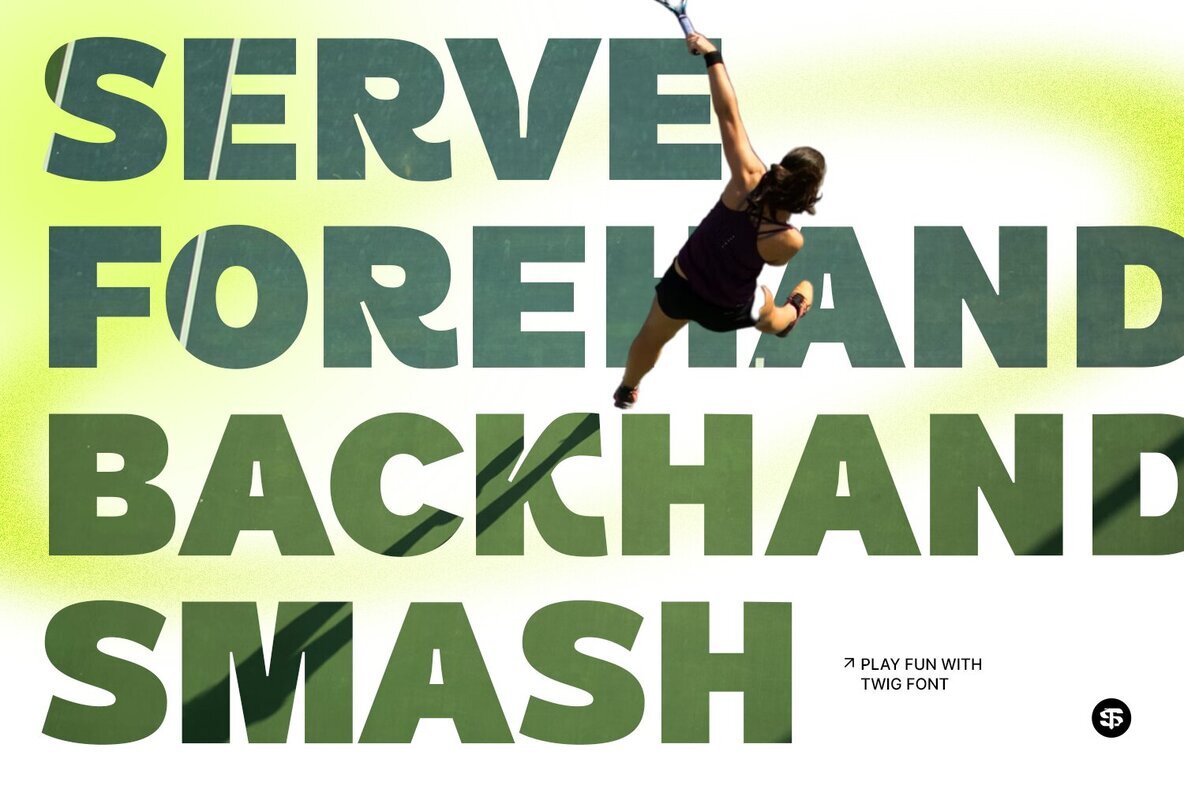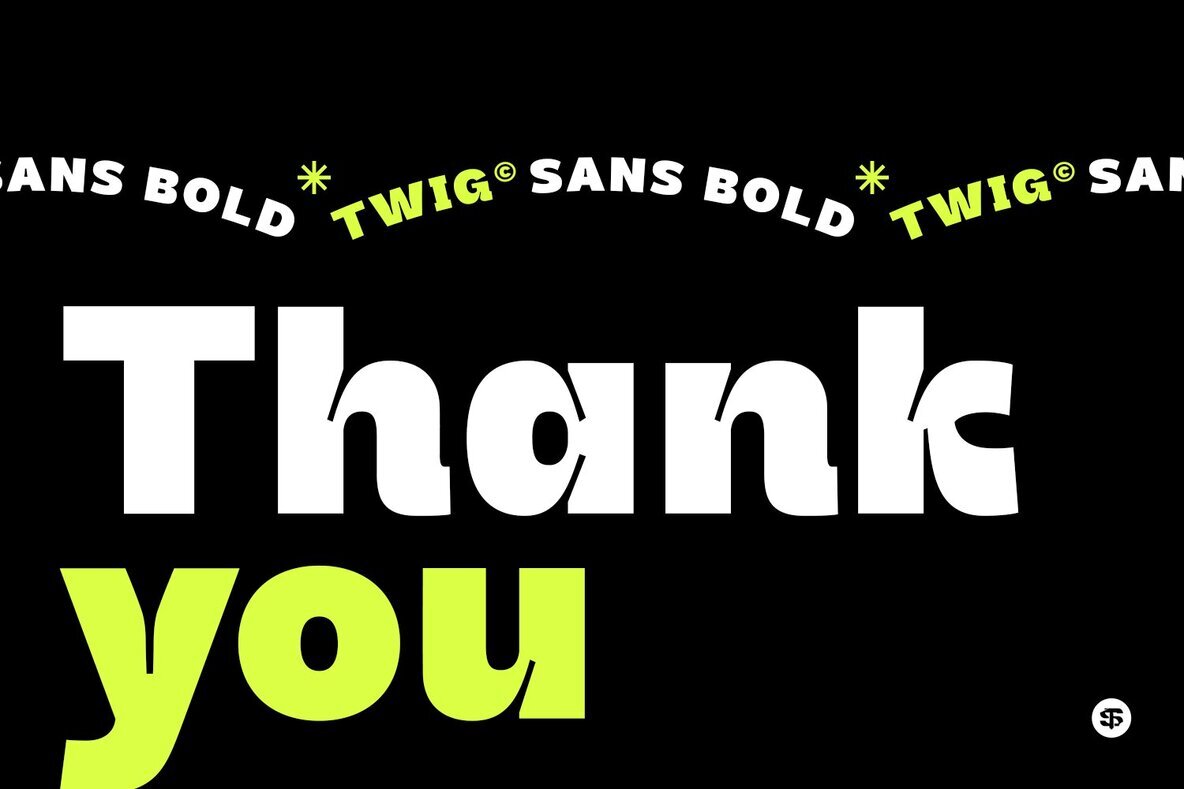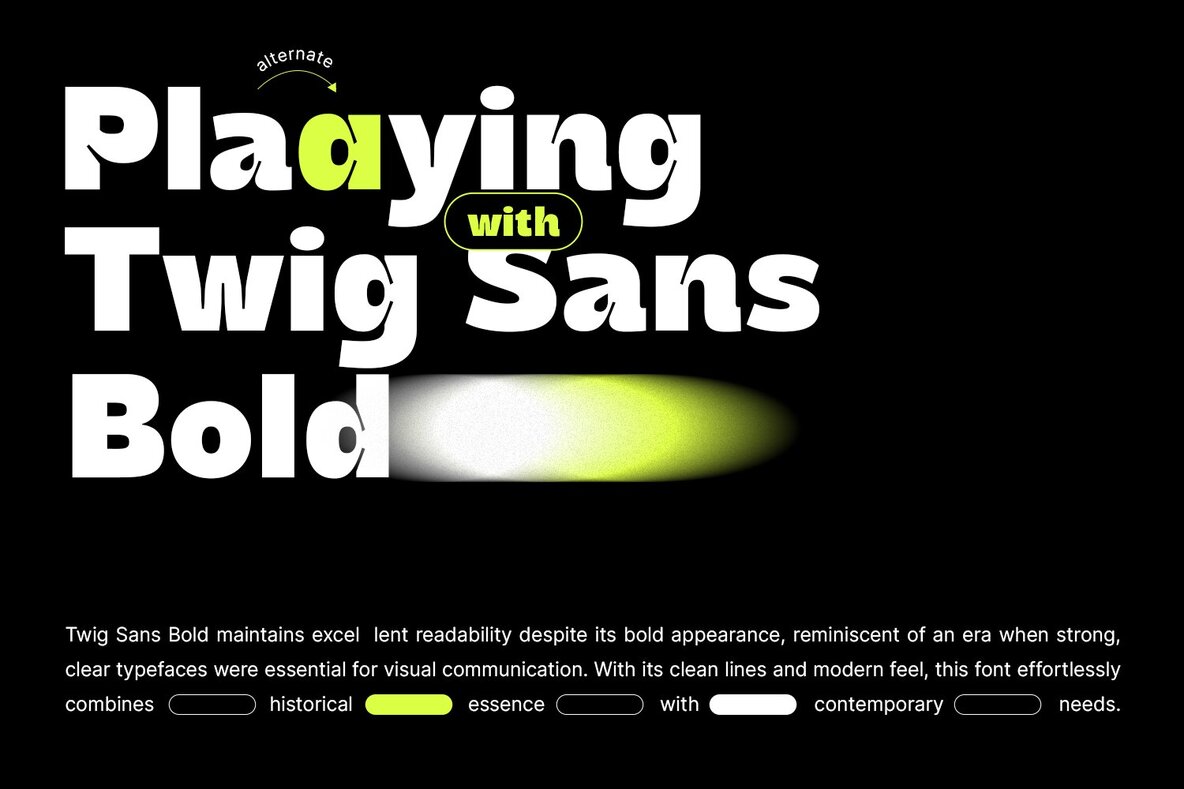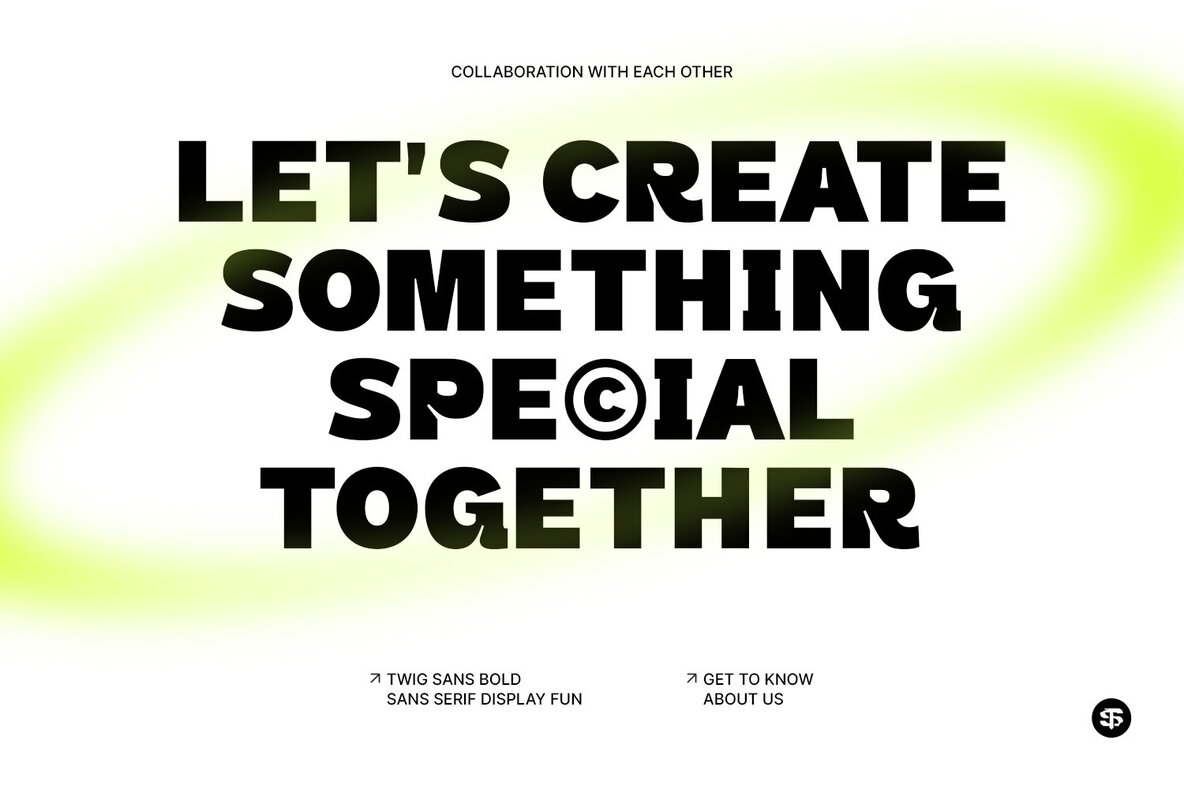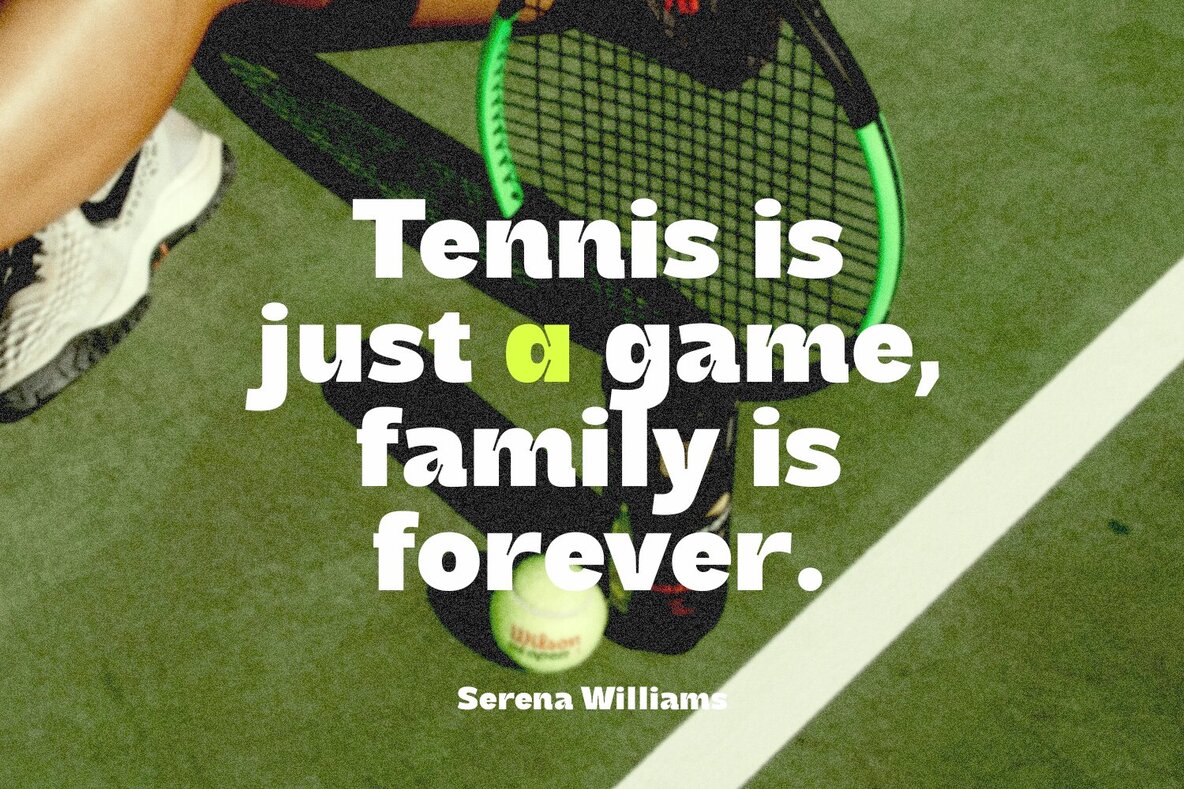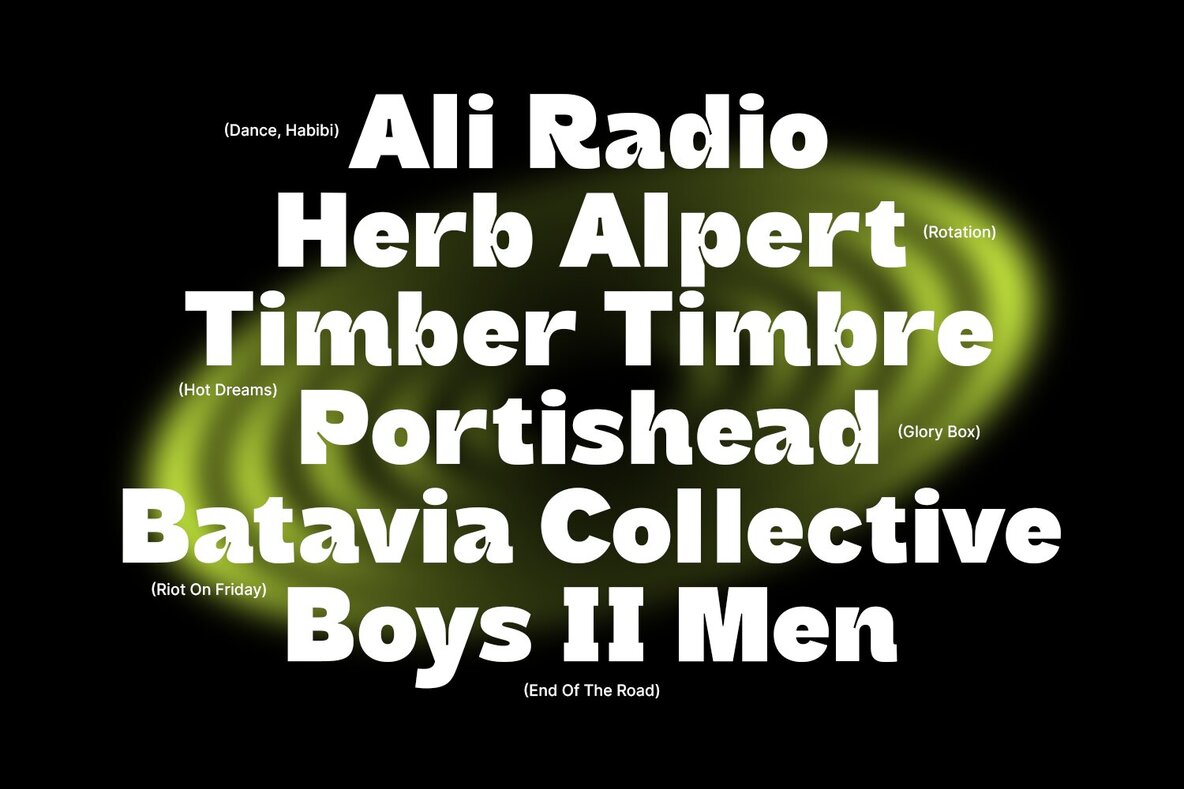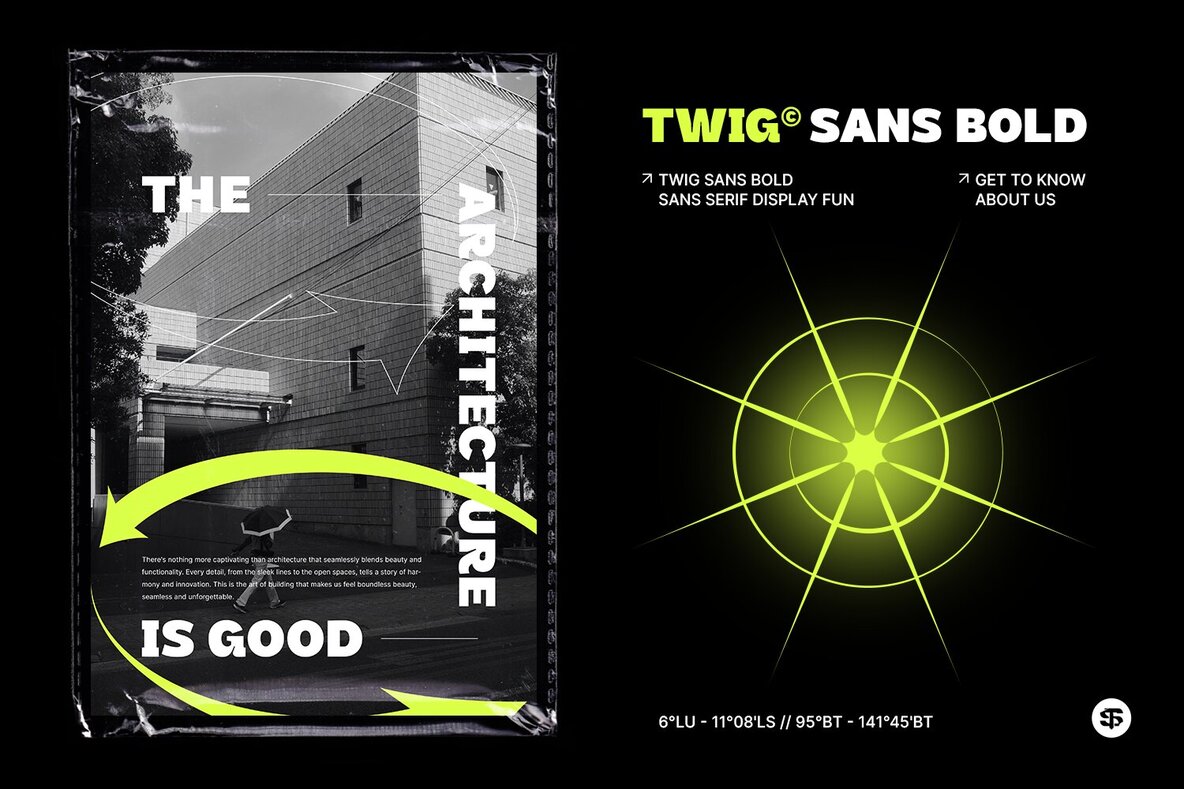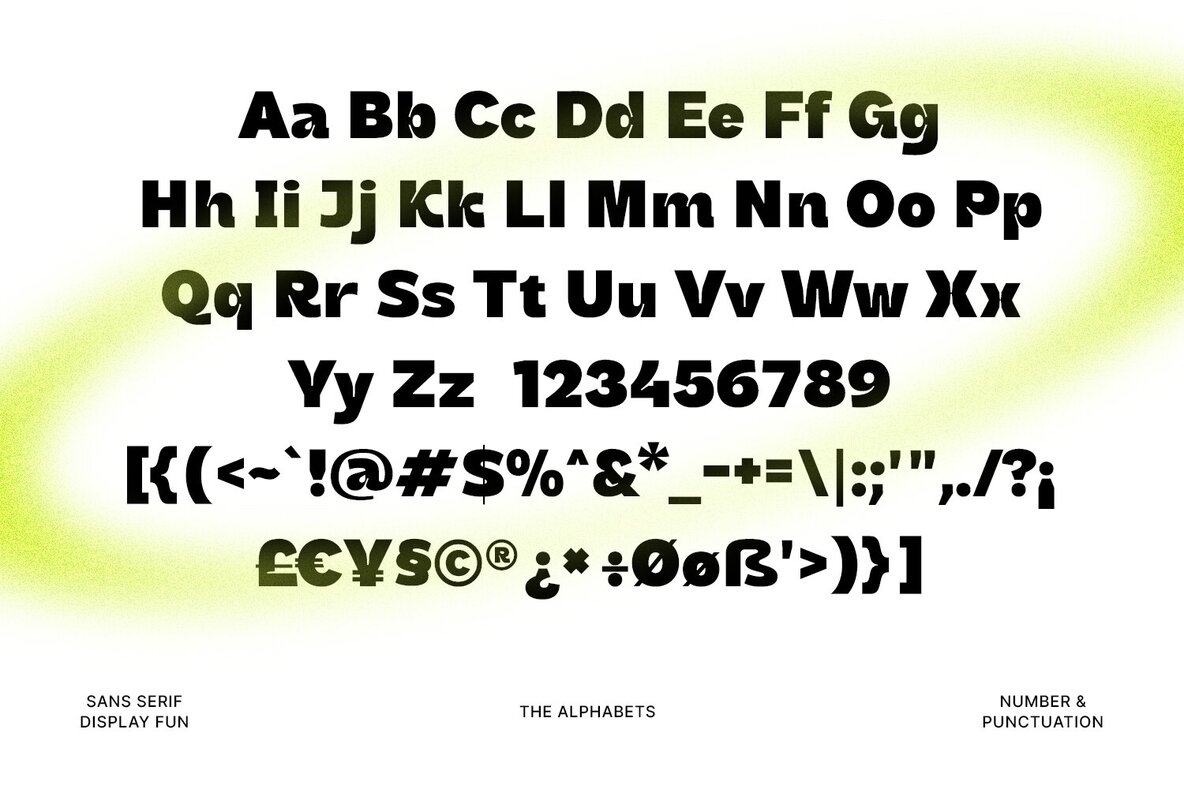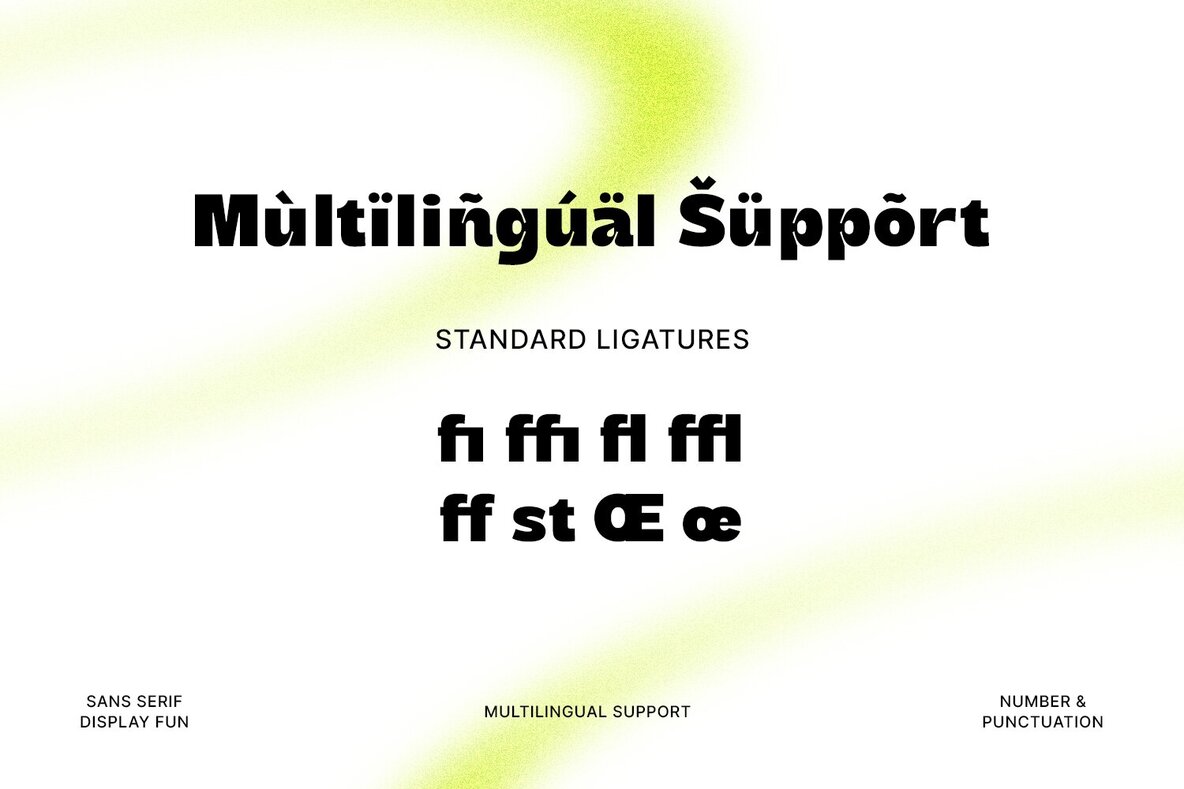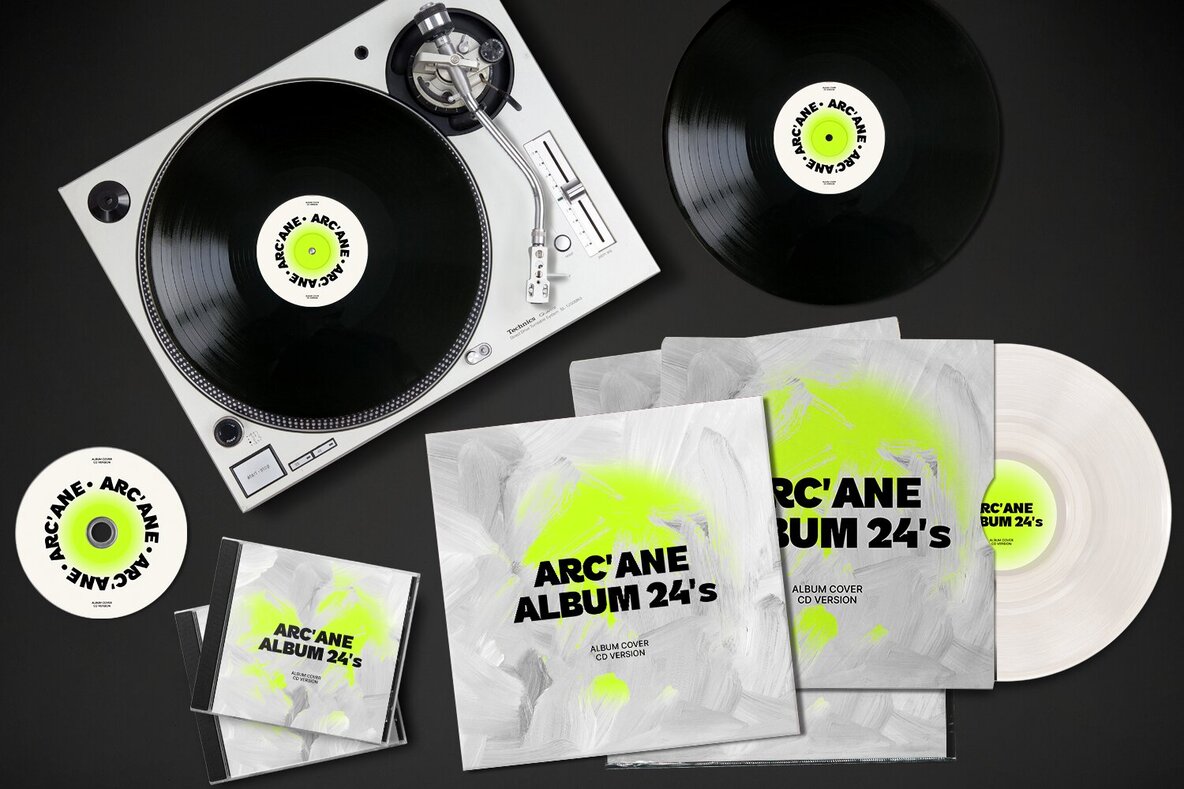
Twig Sans Bold Font
Twig Sans Bold Bold
Twig Sans Bold maintains excellent readability despite its bold appearance, reminiscent of an era when strong, clear typefaces were essential for visual communication. With its clean lines and modern feel, this font effortlessly combines historical essence with contemporary needs. Drawing inspiration from the robust and straightforward typefaces of the past, Twig Sans Bold brings a sense of reliability and clarity to your text. This font is designed to stand out while ensuring your message is conveyed with precision and style. Perfect for headlines, posters, branding, and any project that requires a bold statement, Twig Sans Bold is both versatile and impactful. Its striking presence and timeless appeal make it an excellent choice for designers looking to blend tradition with modernity.